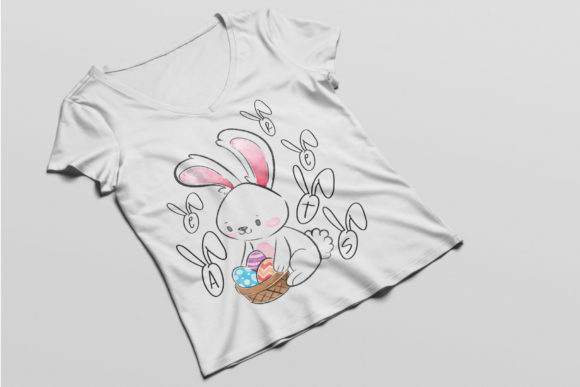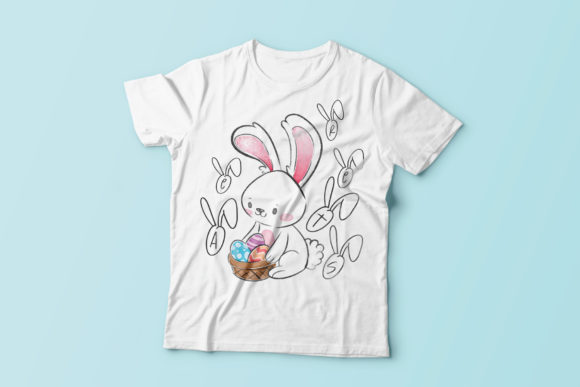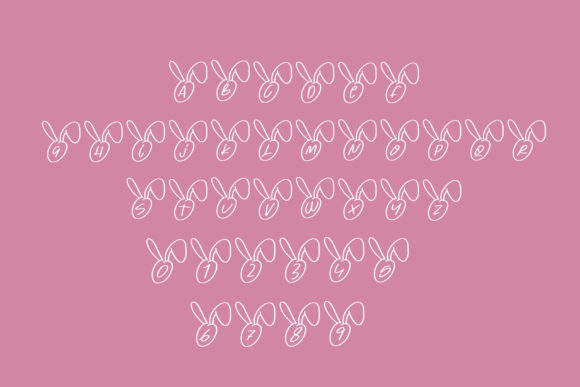
The Joy of Design: Discovering the Magical Bunny Font
Remember the moment when you stumbled upon the perfect font for a project? The one that made your design come alive with its unique charm? For designers, this moment is a treasure trove of inspiration. It’s a feeling that never gets old, and it’s exactly what you’ll experience when you discover the enchanting Bunny Font.
This adorable decorative font is a game-changer for any creative project. Its whimsical look will add a touch of personality to your letterheads, titles, and stationery, making it a perfect fit for crafty ideas. The Bunny Font is an original design that will give your work a distinctive edge, setting you apart from the crowd.
As a designer, you know how valuable a unique font can be. It’s a chance to express your creativity and make your projects truly special. With the Bunny Font, you’ll have the freedom to experiment and push the boundaries of your design skills.
- Unique Characteristics: Bunny Font features a playful, cursive design with rounded edges and a whimsical feel, making it ideal for creative and children’s content.
Bunny Font Review
I recently had the chance to work with the Bunny Font, and I must say, it’s a mixed bag. Here are my thoughts:
- Unique and playful design: The Bunny Font has a charming, whimsical feel that can add a touch of fun to any project.
- Good legibility: Despite its playful nature, the font is surprisingly easy to read, making it suitable for body text as well as headlines.
- Customization options: The font comes with a range of customization options, including various styles and weights, which can help you achieve the desired look.
- Limited compatibility: The font may not work well in all operating systems or devices, which can be a problem for those who need a font that’s widely compatible.
- Not ideal for serious or formal projects: While the Bunny Font can be a great choice for fun or creative projects, it may not be the best fit for serious or formal projects that require a more professional tone.
Overall, the Bunny Font is a fun and playful font that can add a touch of whimsy to your projects. While it has its limitations, it’s a great choice for those who want a unique and eye-catching font. Just be aware of its limitations and use it accordingly.
To get the most out of Bunny Font, use it in conjunction with other playful and whimsical design elements. Experiment with different font sizes, colors, and combinations to create a unique and eye-catching look.
Bunny Font is perfect for:
– Children’s party invitations and decorations
– Easter-themed designs and graphics
– Whimsical and playful branding and marketing materials
Alternatives to Bunny Font
Pacifico is a beautiful, elegant script font perfect for creating a luxurious and sophisticated look. It’s ideal for use in invitations, wedding stationery, and other high-end designs. Pacifico is a more refined and polished alternative to Bunny Font, with a more classic and timeless feel.
Great Vibes is a modern, handwritten font that’s perfect for creating a fun and playful vibe. It’s great for use in social media graphics, posters, and other designs where you want to add a touch of personality. Great Vibes is a bolder and more casual alternative to Bunny Font, with a more relaxed and laid-back feel.